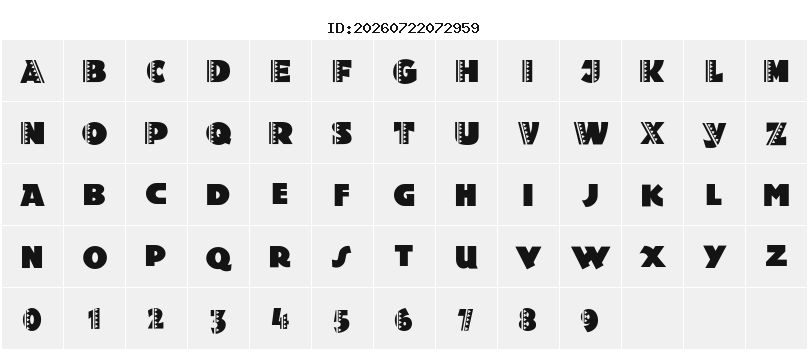
Holy-Ravioli Preview
• Font Name: Holy-Ravioli
• Full Font Name: Holy-Ravioli
• PostScript Name: Holy-Ravioli
About Holy-Ravioli.ttf
Holy-Ravioli.ttf is a modern, elegant sans-serif font designed for ultimate readability and visual harmony. Perfect for branding, headlines, web design, and print materials.